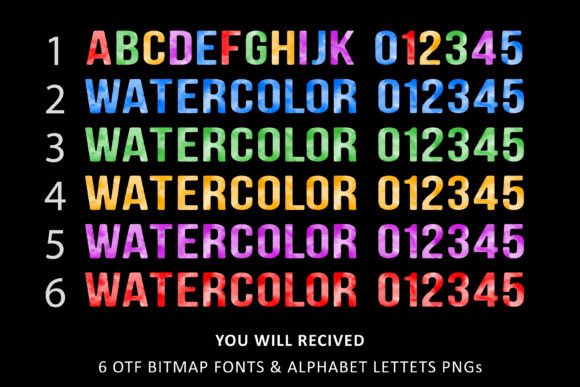
Watercolor Collection Font
Watercolor gathers 6 eye-catching and sweet color fonts. It is a colorful watercolor-style font collection designed for a great visual impact. All the letters in these fonts are colored brightly and vividly so they are perfect for all your cheerful projects.